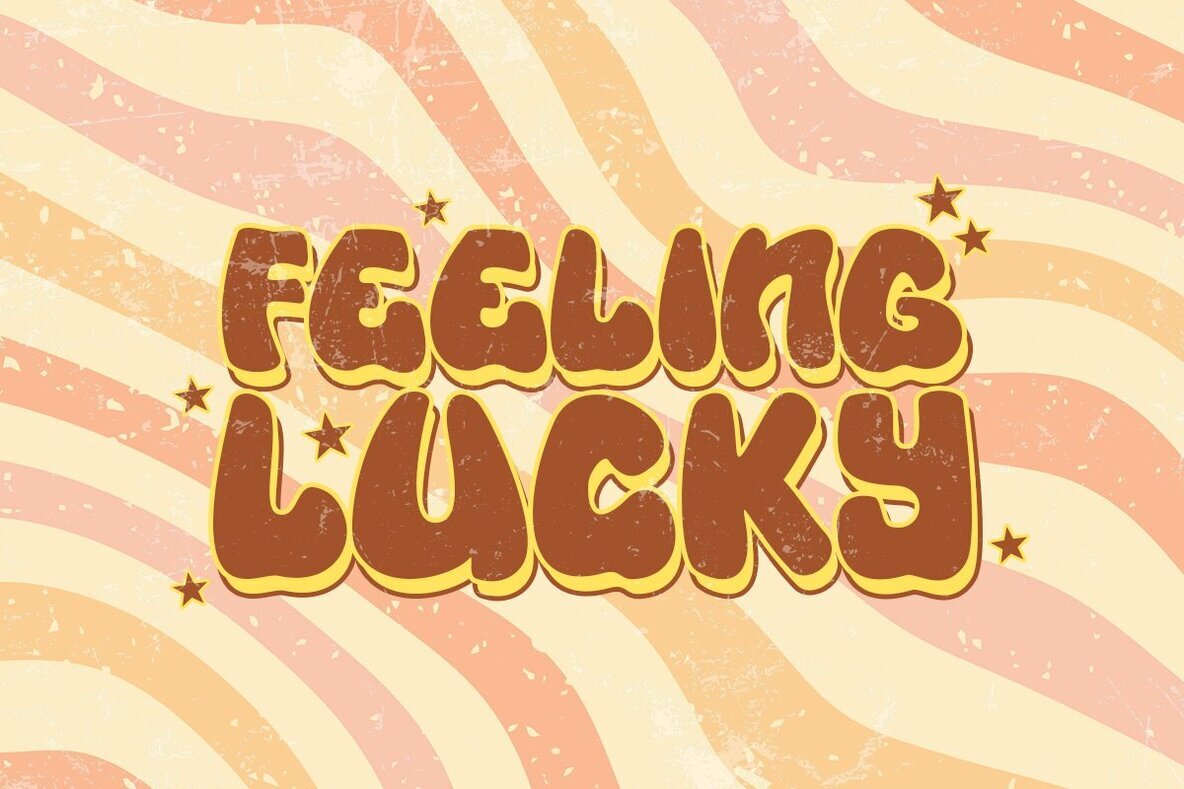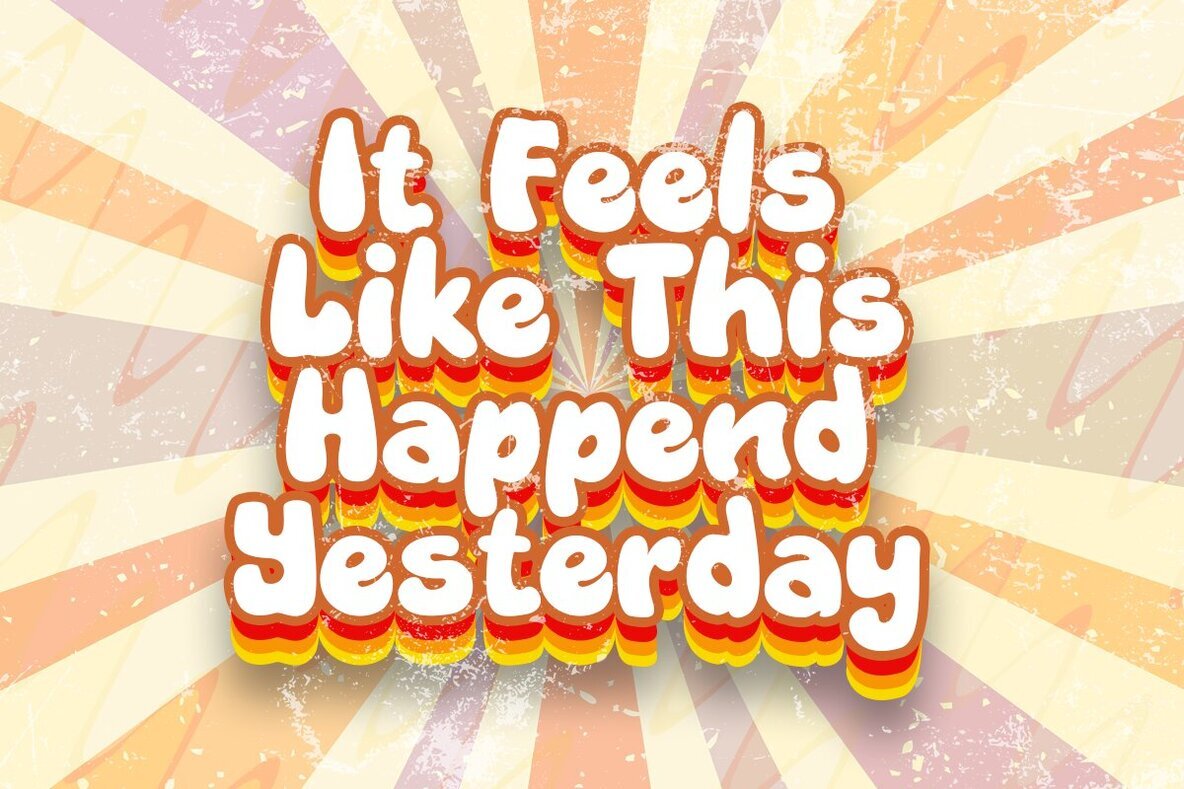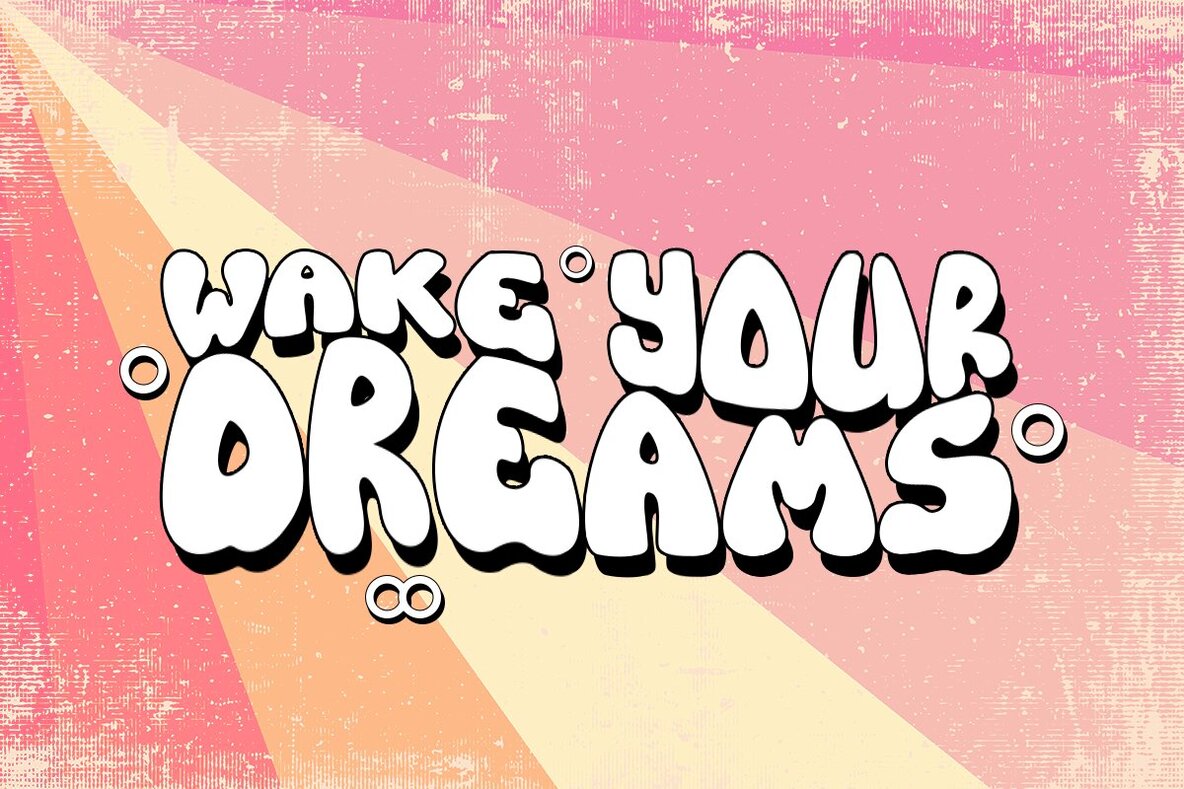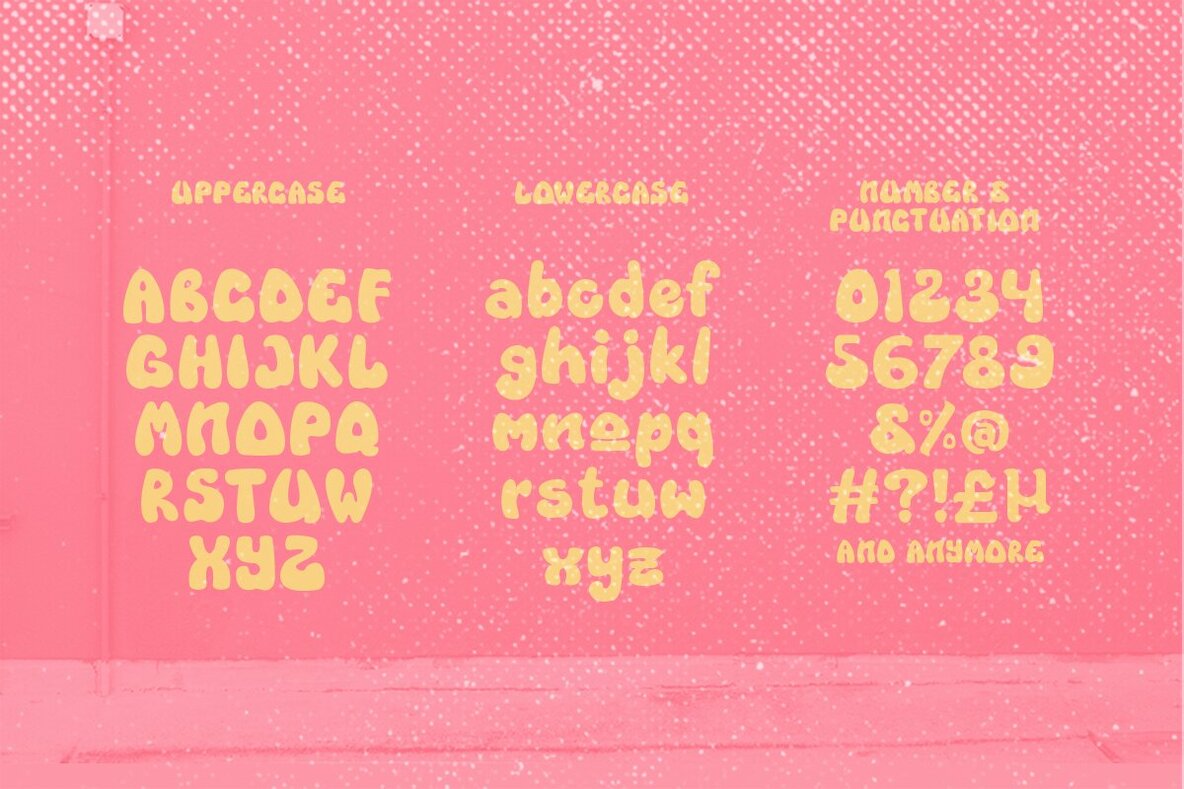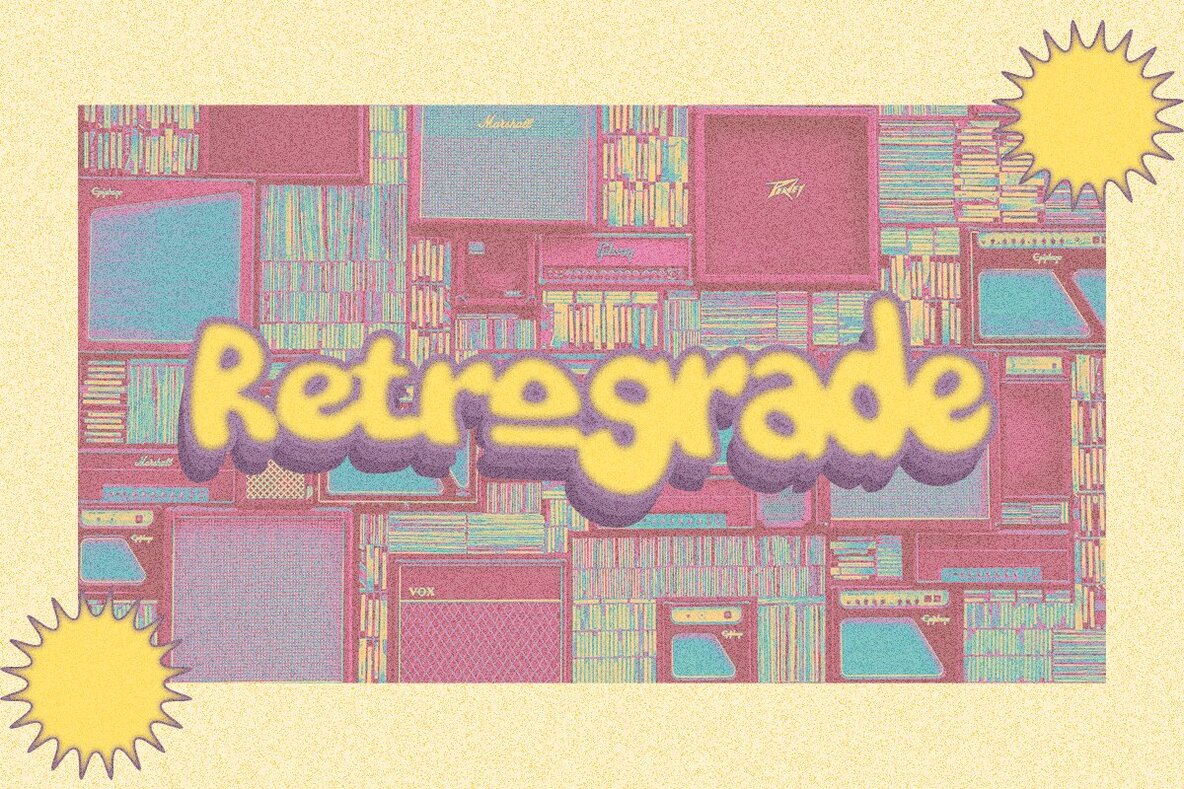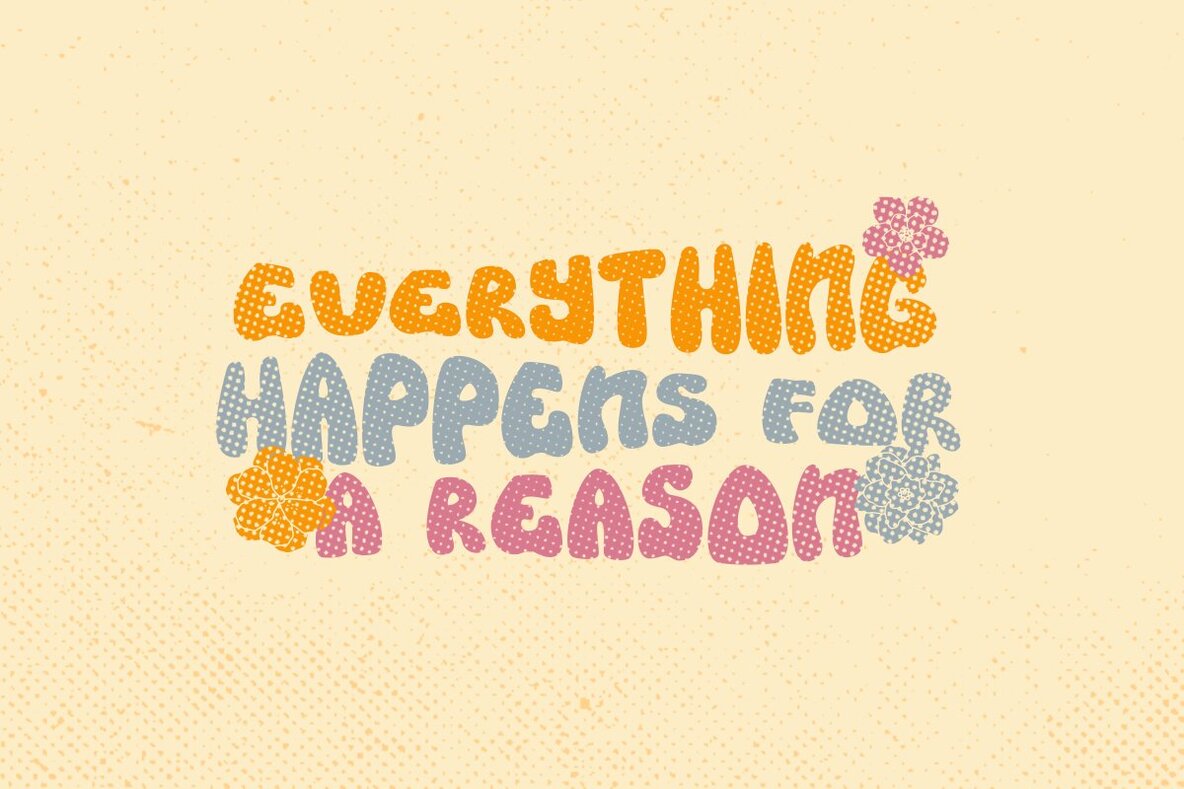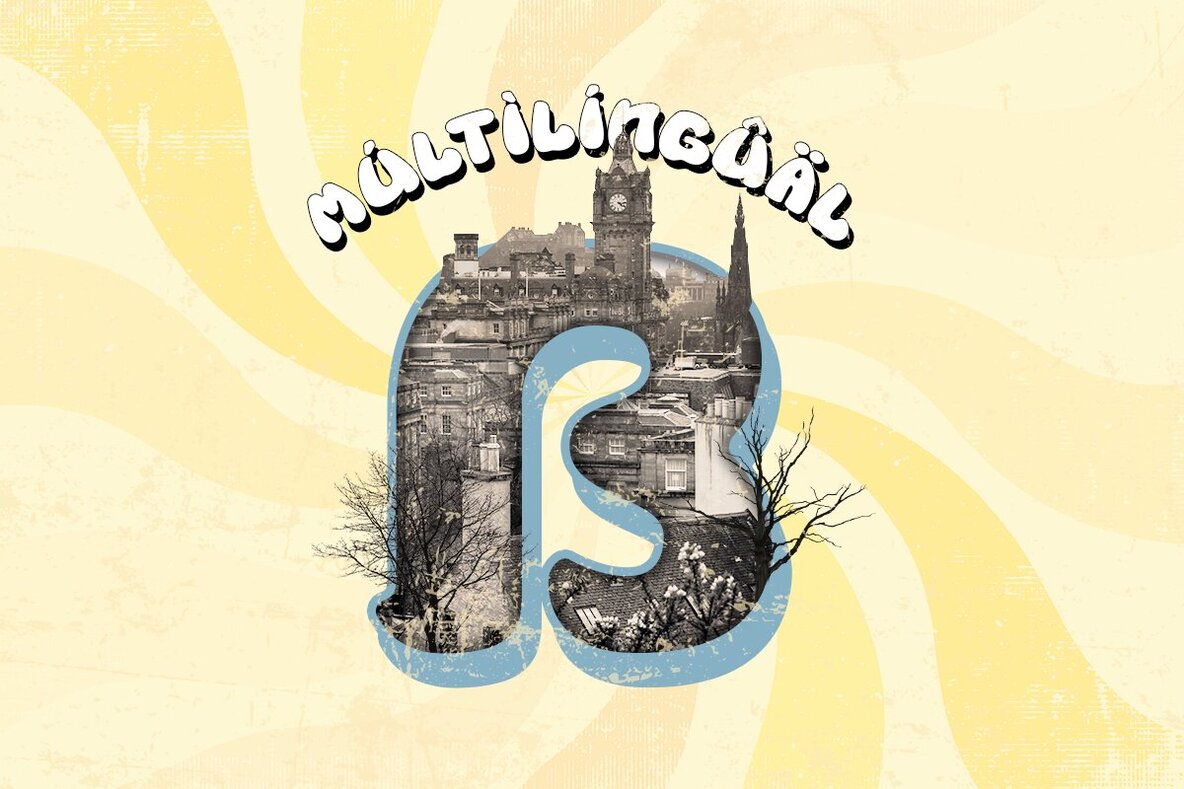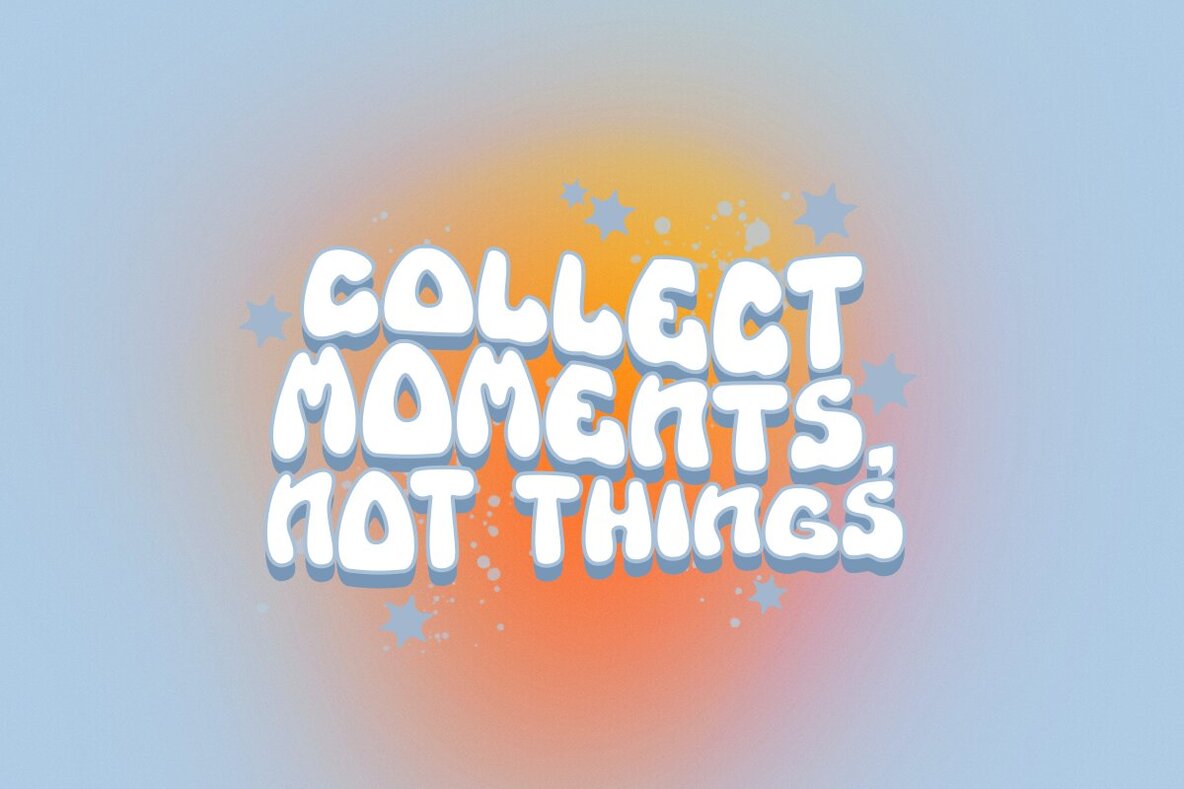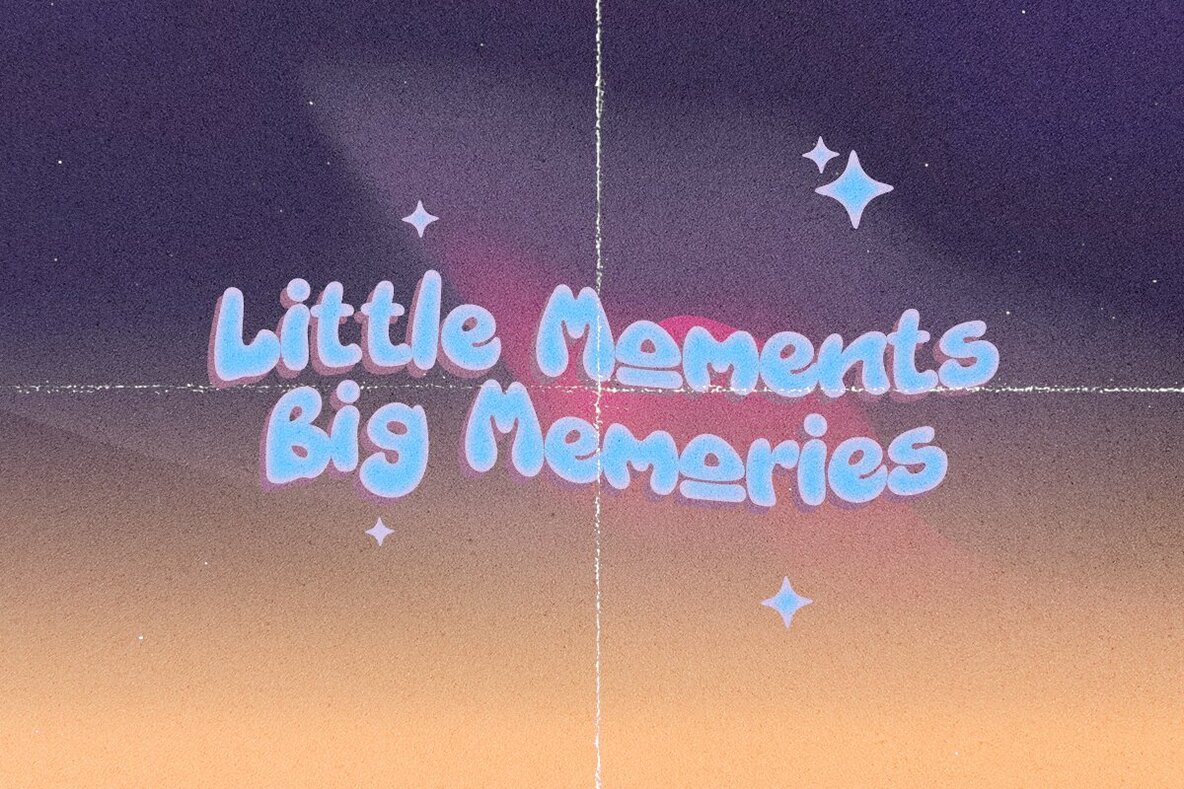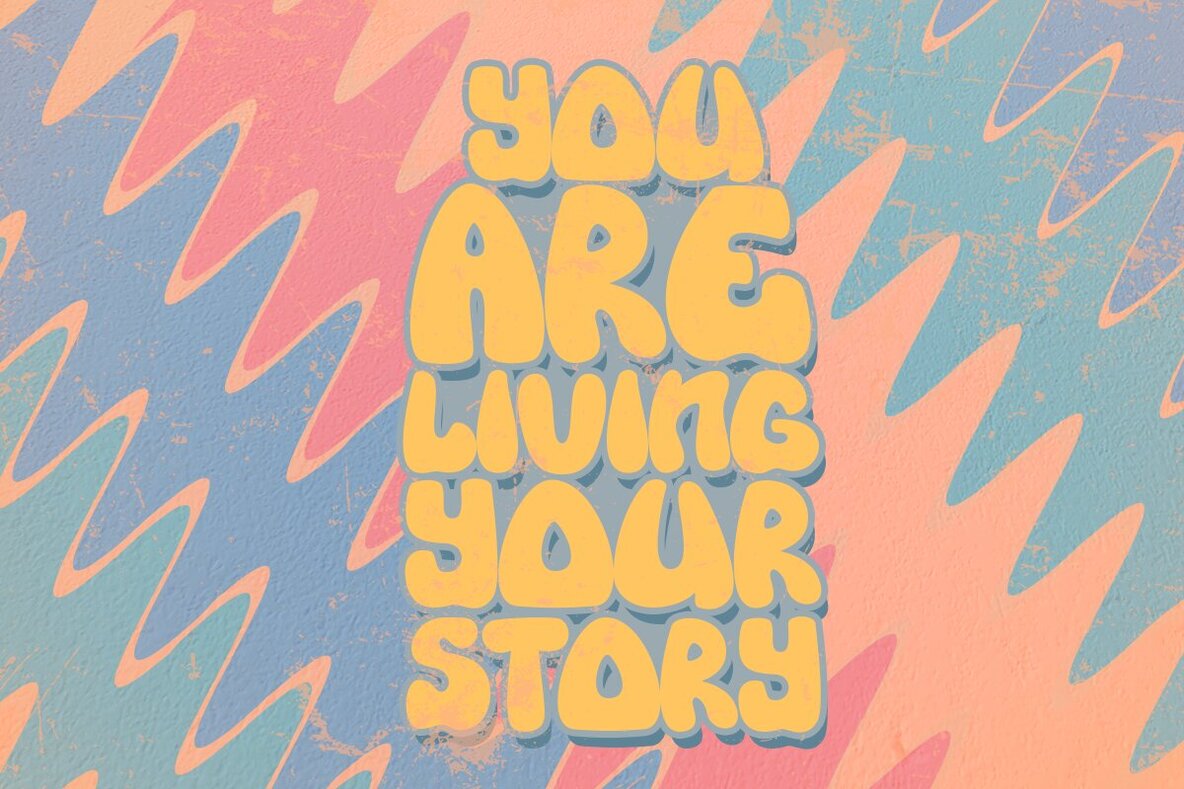
Various Font
Various Regular
Various Outline
Various is a font with a delightful retro touch perfect for capturing the essence of the 60s, 70s, 80s, 90s, and even Y2K designs! Its unique characteristics will transport you to those iconic eras, adding a nostalgic vibe to your creative projects. Various come in two versions - Regular and Outline. With two different style fonts, you can easily create eye-catching designs without any extra effort This font is perfect for a retro 00s theme and can be used for cover magazines, brochures, logos, headlines or quotes, stand-alone displays, and short paragraphs or content. Each font in the family is dynamic and authoritative on its own, making it perfect for any display project. What do you get?